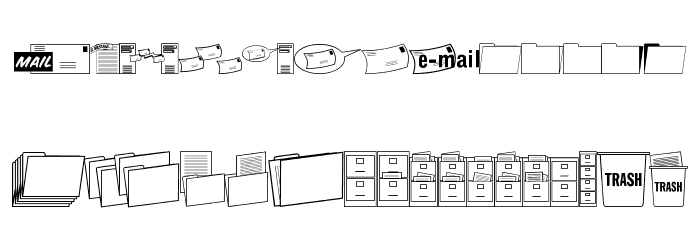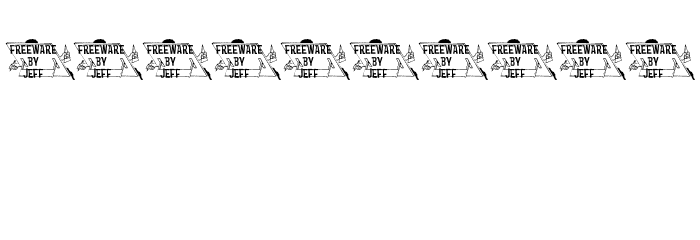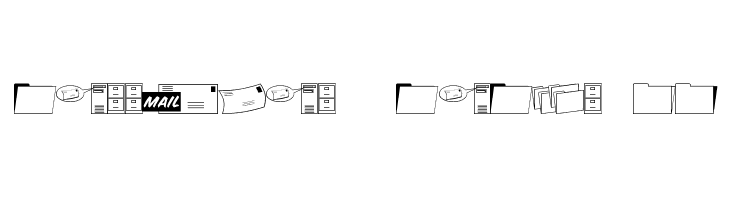
Messages & Memos JL Font
This is not a traditional font but rather a series of icons and symbols related to mail and office supplies. The characters depict various items such as envelopes, folders, filing cabinets, and trash bins, each representing a different letter or symbol. The style is illustrative and playful, making it suitable for creative projects that require a thematic representation of office or communication tools.
An iconographic set depicting mail and office-related items.
- Proposed Projects: Ideal for creating themed graphics for office-related presentations, educational materials, or playful communication designs.
- Use Case: Logos, Decorative elements